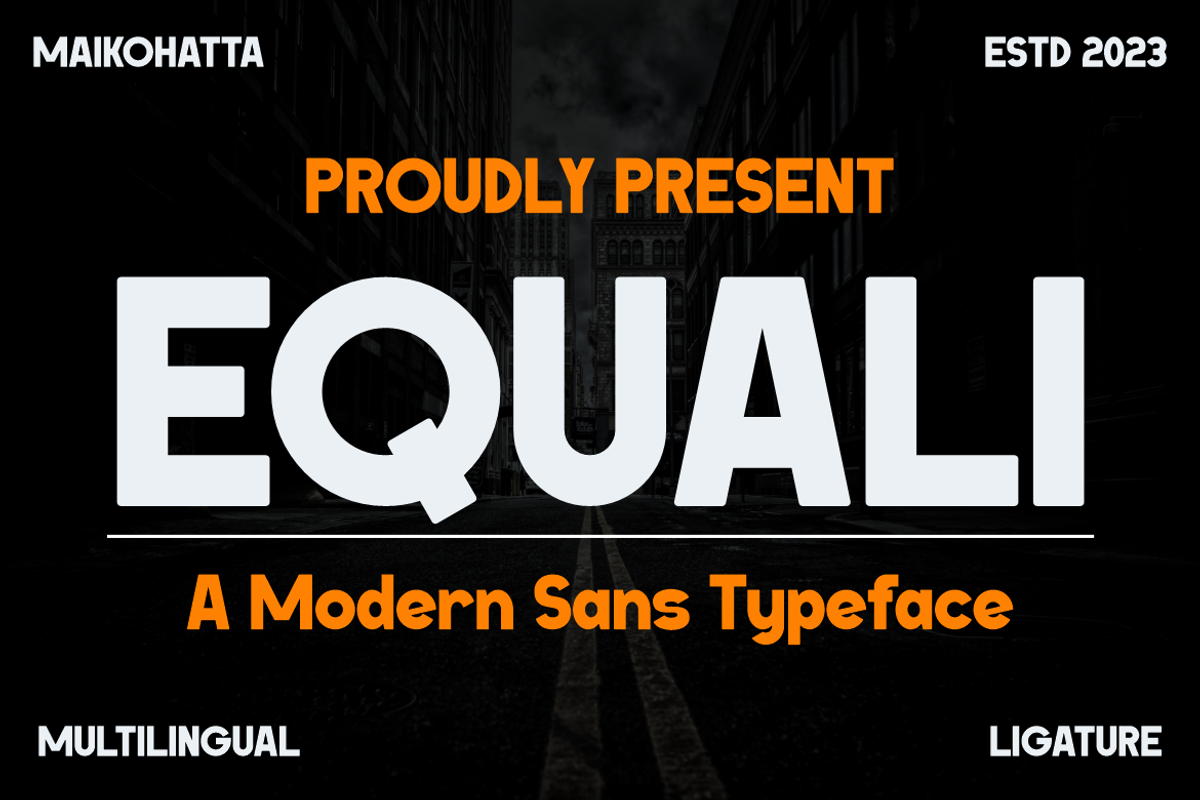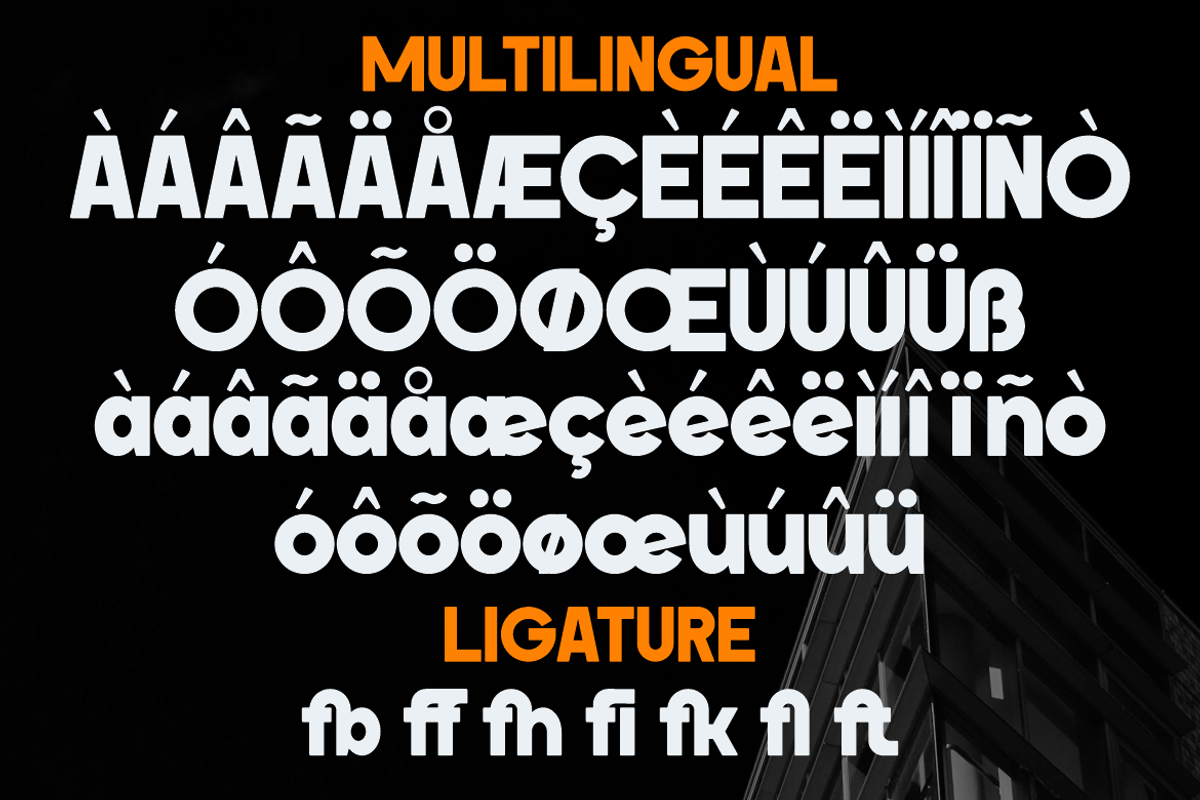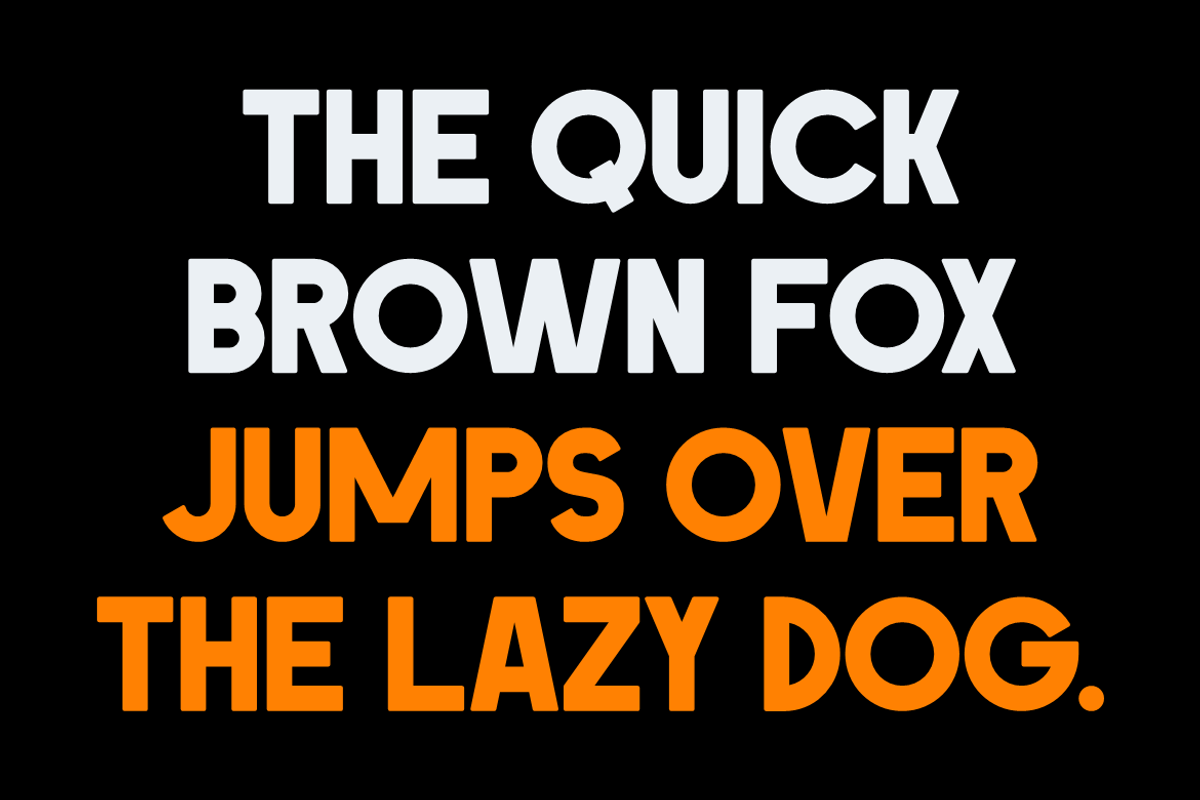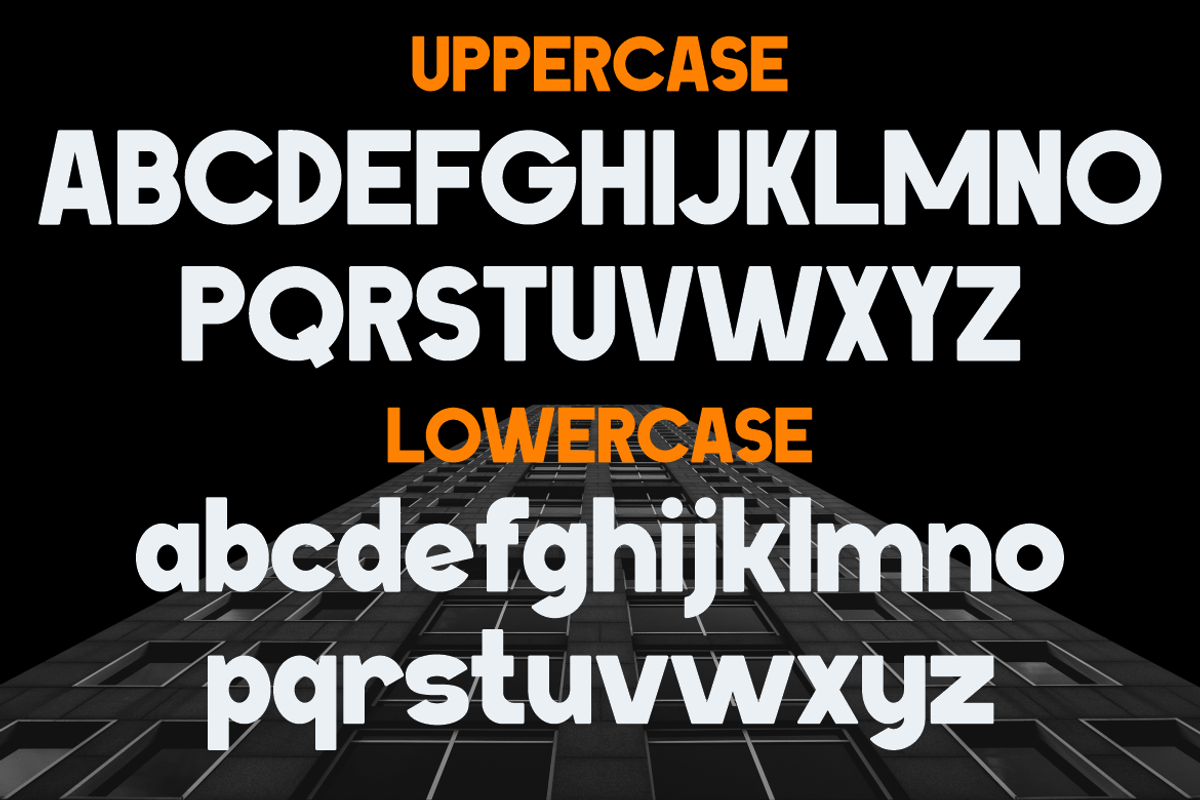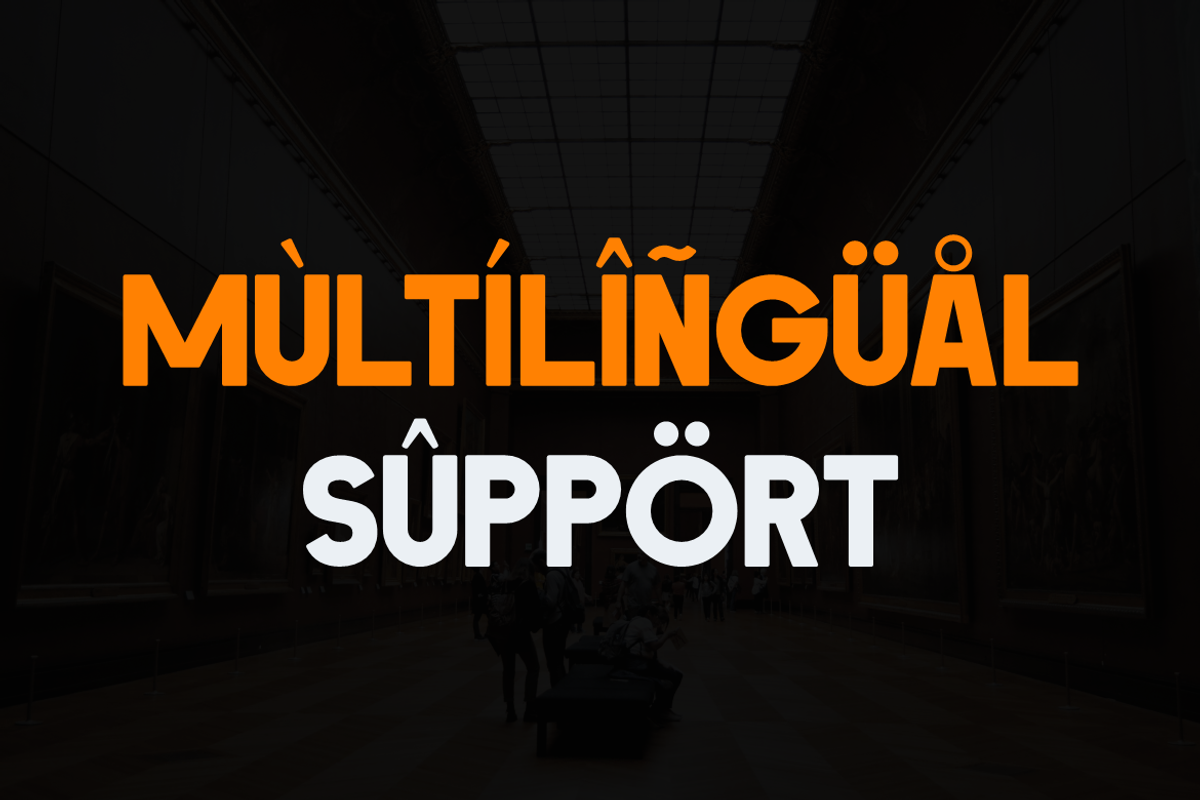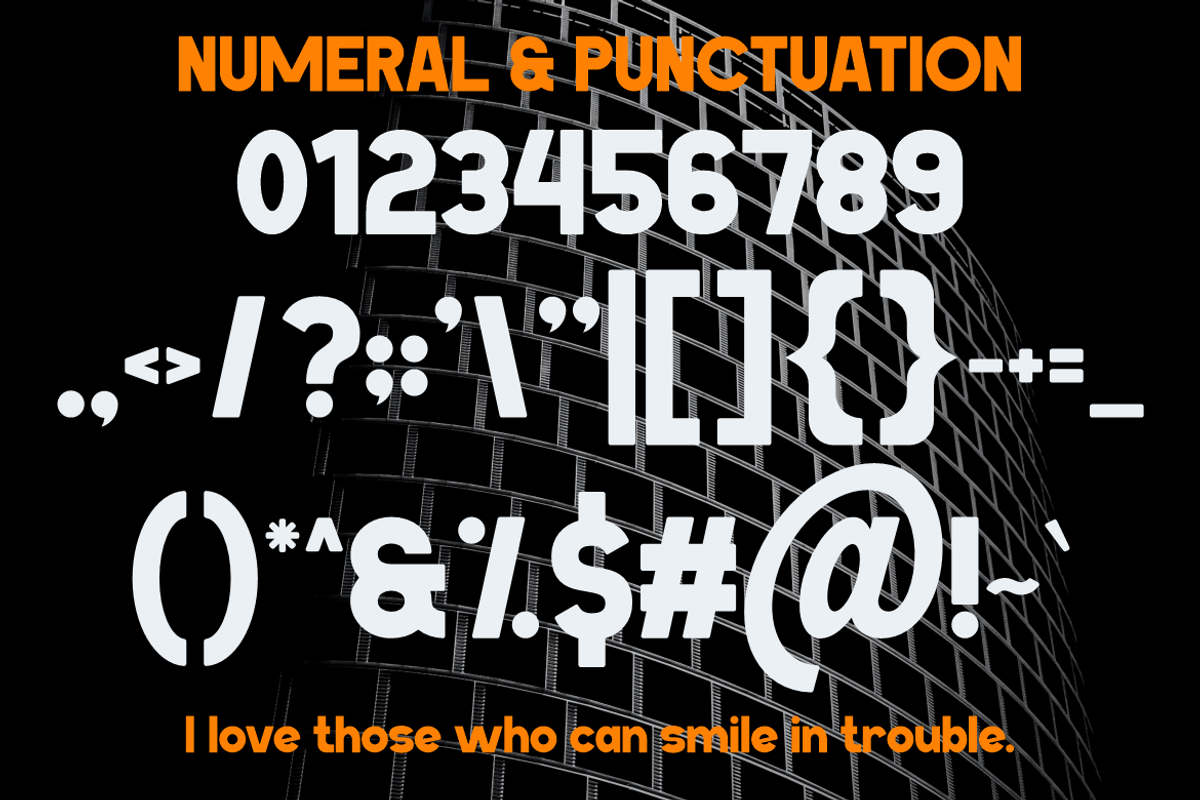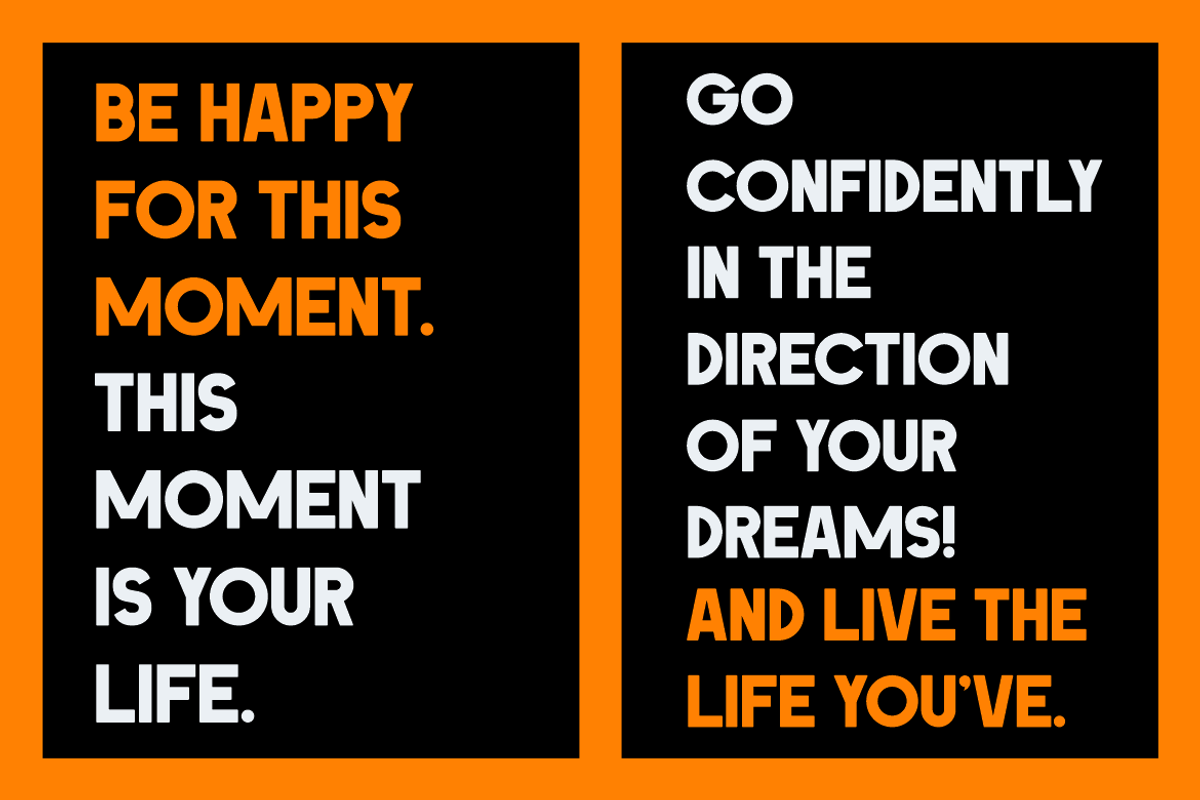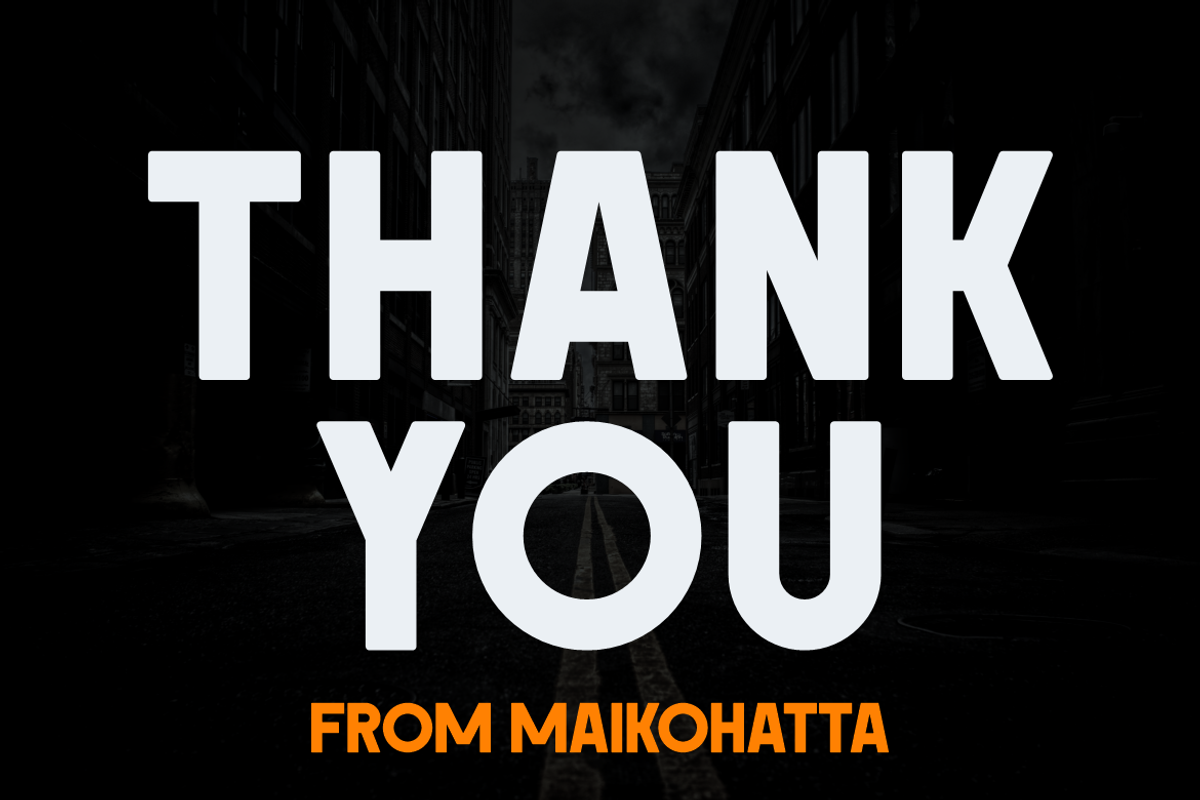
Equali - Modern Sans Typeface
Introducing our new product Equali - Modern Sans Typeface
Equali - Modern Sans Typeface is a bold and authentic display font. The font is suitable for any branding project like logo, template design, and many more. outstanding in a wide range of contexts.